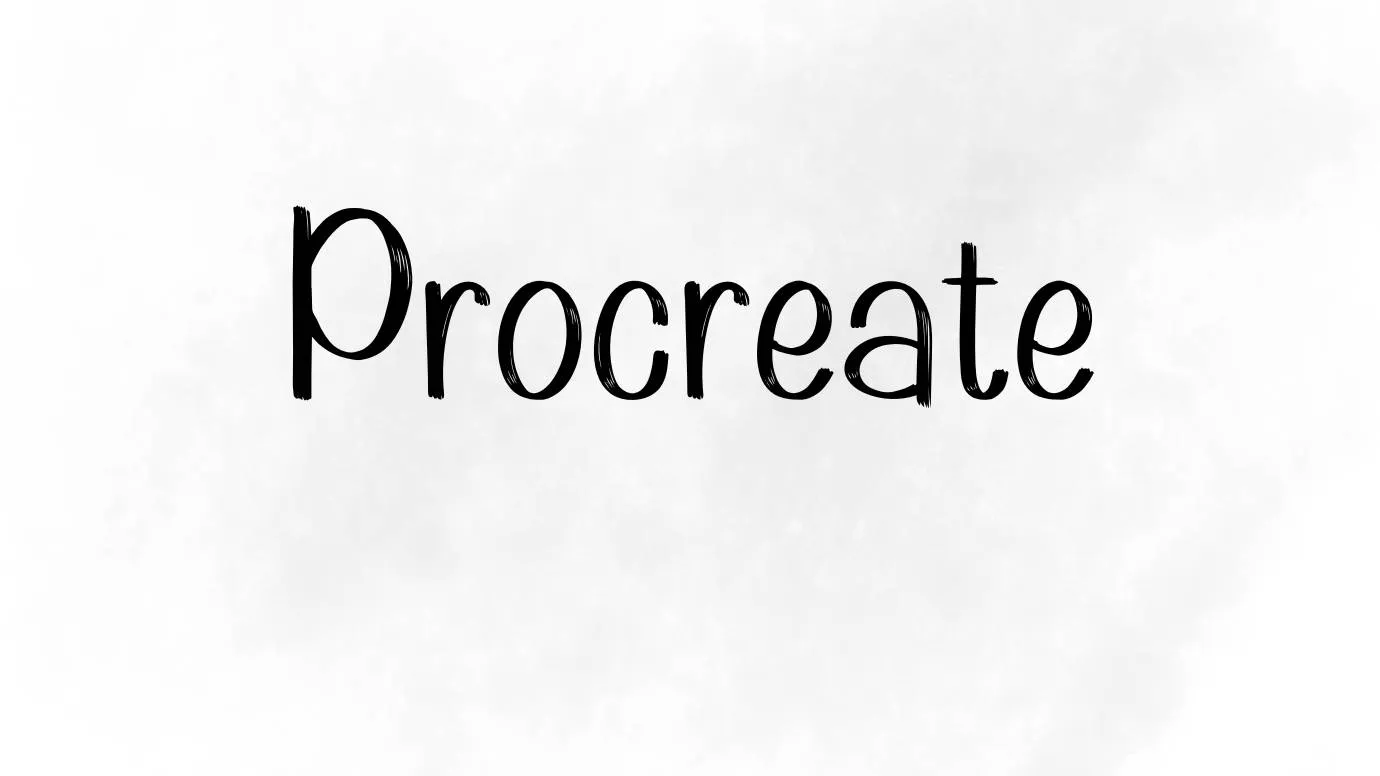
Procreate Font Family is a very attractive brush-type font and has a neat and clean texture look appearance for the visitors. It was designed by a famous designer Sugeng Choirul.
It works very fast and you can see the results within seconds. You can also use this font for pairing with other fonts such as blow brush font to give a more attractive and elegant look to your projects.
Procreate Font Family